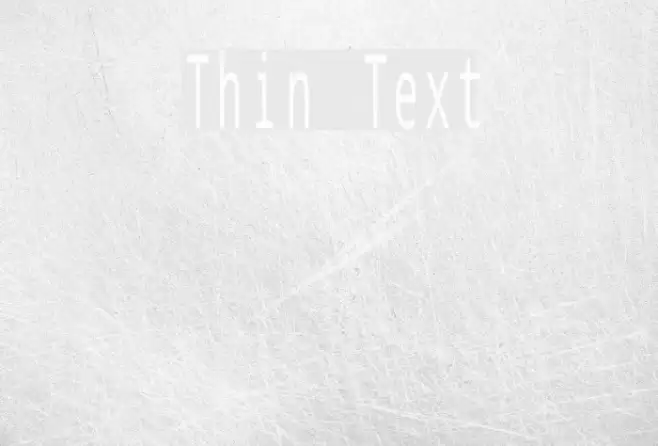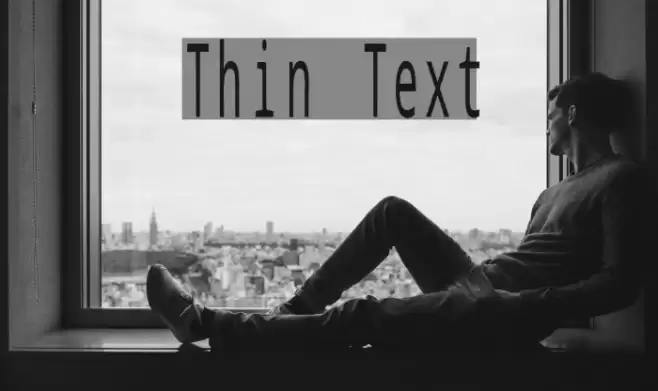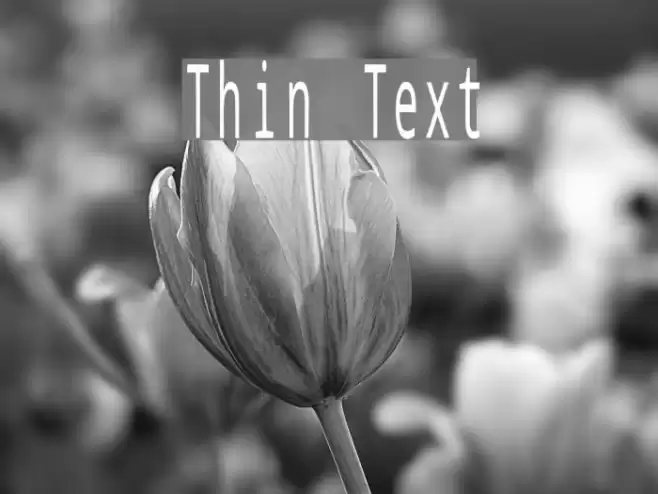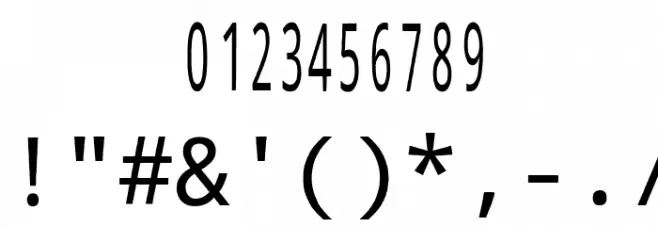
Thin Text Font
Thin Text Description
This font features a clean and modern sans-serif style with a thin, elegant appearance. The characters are tall and narrow, giving a sleek and sophisticated look. The uppercase and lowercase letters maintain a consistent height ratio, providing a harmonious visual flow. The numerals are clear and distinct, ensuring readability. Special characters are well-defined, adding versatility to the font. The overall design is minimalistic, making it suitable for contemporary design projects that require a touch of elegance and simplicity.
A thin, modern sans-serif font with a sleek and elegant appearance from Uncategorized fonts.
- Proposed Projects: Ideal for fashion magazines, minimalist branding, modern websites, and elegant invitations.